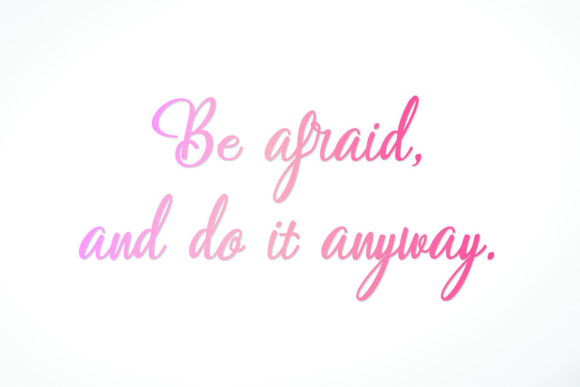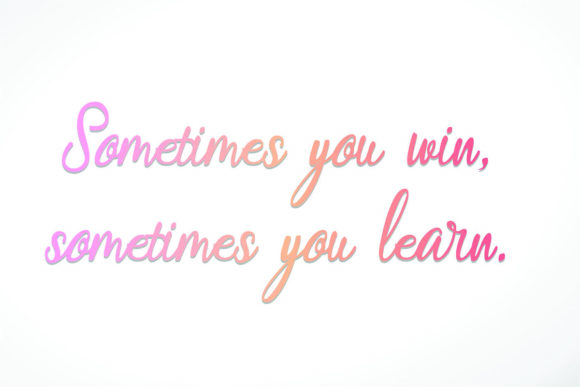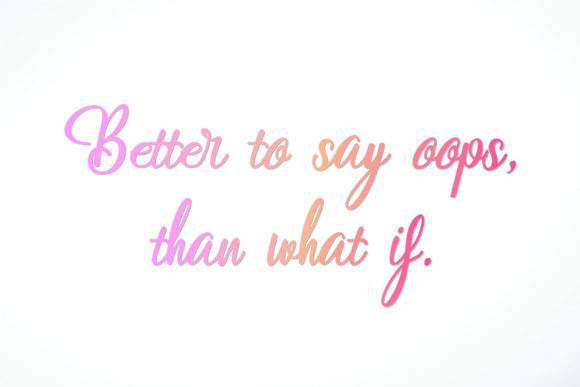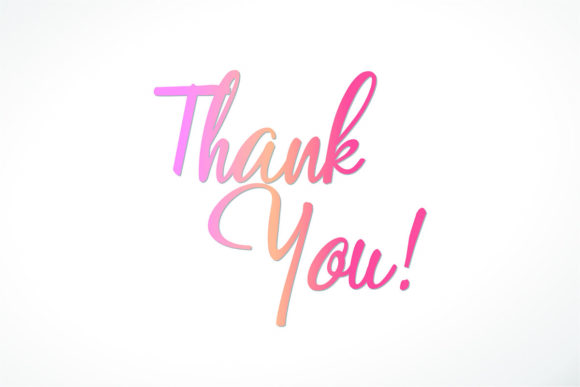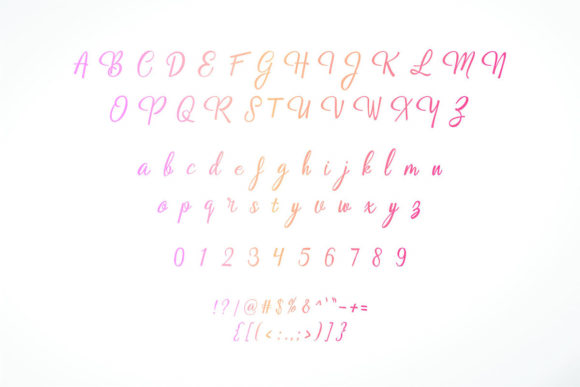
HomeScript FontsSylvanna Script Font Script Fonts Sylvanna Script Font FacebookXPinterestWhatsApp Sylvanna Script Font Poster 2 Sylvanna Script Font Poster 3 Sylvanna Script Font Poster 4 Sylvanna Script Font Poster 5 Sylvanna Script Font Poster 6 About Sylvanna Script Font Sylvanna is a handwritten romantic script with charming character. Great for a variety of design projects! DOWNLOAD NOW People also explored Incredible Font Anastacia Font Love Live Font Medusa Font Stay Late Font Avestrava Font Happy Valentine Font Smaily Font Helena Rosallina Font 272 0 TagsSylvanna Script Font Previous articlePinkalova FontNext articleBlooqe Stages Font LEAVE A REPLY Cancel reply Comment: Please enter your comment! Name:* Please enter your name here Email:* You have entered an incorrect email address! Please enter your email address here Website: Save my name, email, and website in this browser for the next time I comment. Personal Use Free Lazy Sunday Personal Use Free Read more about this font Neuropol Personal Use Free Read more about this font GoodFay Personal Use Free Read more about this font Authurium Personal Use Free Read more about this font BLOG 5 Fonts That Will Dominate Design Trends in 2026 5 Fonts for 2026 That Will Dominate Design Trends Typography plays a critical role in visual communication, and as we look ahead to 2026, it’s... How to Cut Any Font on Cricut: Convert a Font to SVG (Free) Free vs Paid Fonts: Why Investing in Premium Fonts Is Worth It Modern Sans-Serif Fonts That Brands Love in 2025